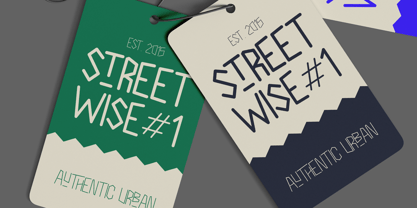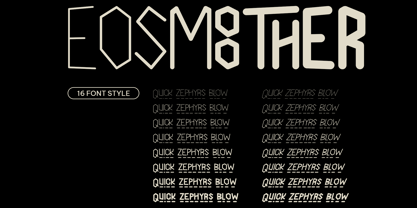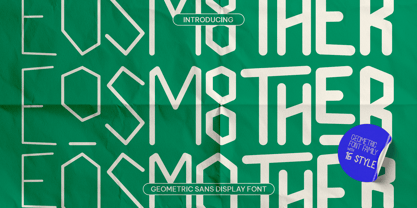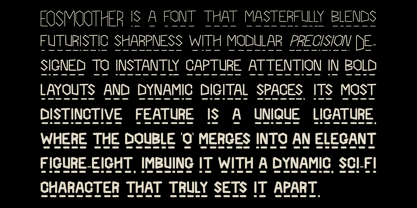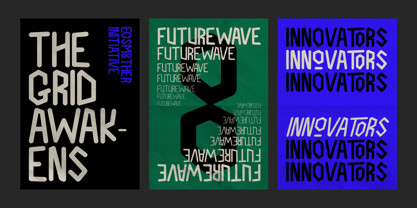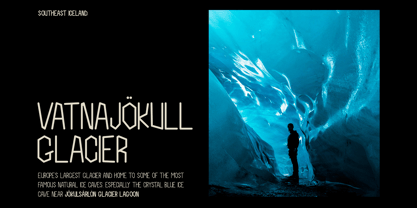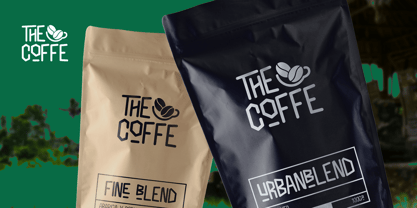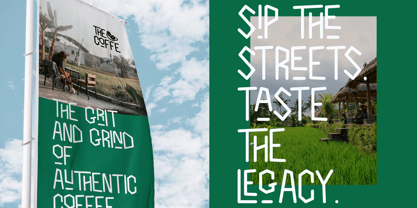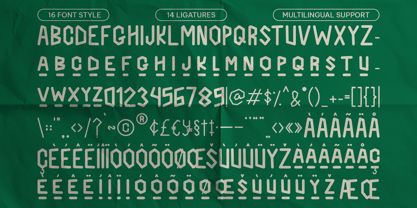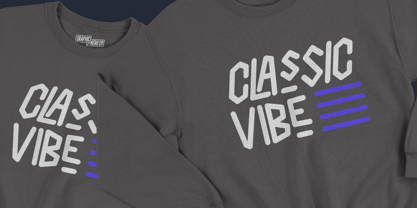
CF Eosmoother
Die Schriftfamilie CF Eosmoother wurde von Frederik Aristaputra entworfen und von Naipe Foundry veröffentlicht. CF Eosmoother enthält 16 Stile und Familienpaketoptionen.
EOSMOOTHER is a geometric sans display font family built with precision, structure, and a distinct futuristic tone. Each character is crafted with clean angles and smooth curves, making the typeface both minimal and memorable. Its bold geometry shines in headlines, editorial layouts, posters, tech interfaces, and branding that needs a forward-thinking edge. With 16 unique styles, EOSMOOTHER gives you the flexibility to create powerful visual hierarchies and experimental typographic compositions. Whether you're designing for modern fashion, sci-fi media, or lifestyle branding, EOSMOOTHER keeps your message clear and striking.